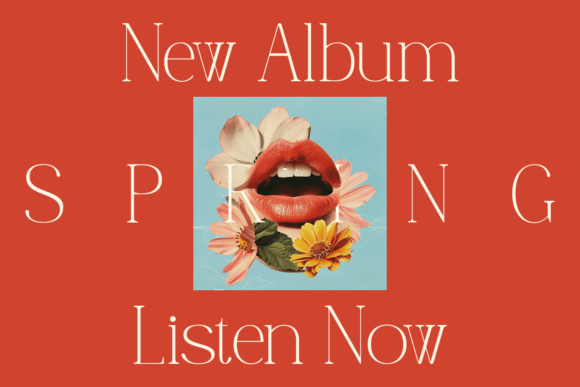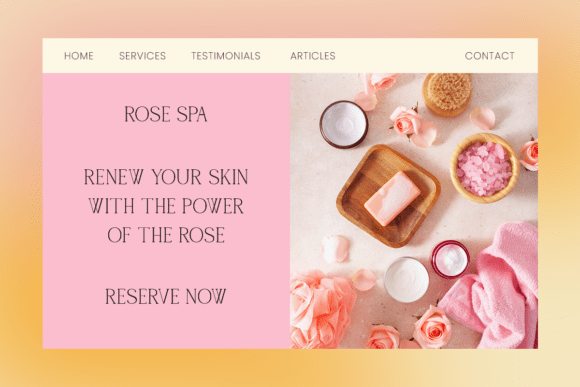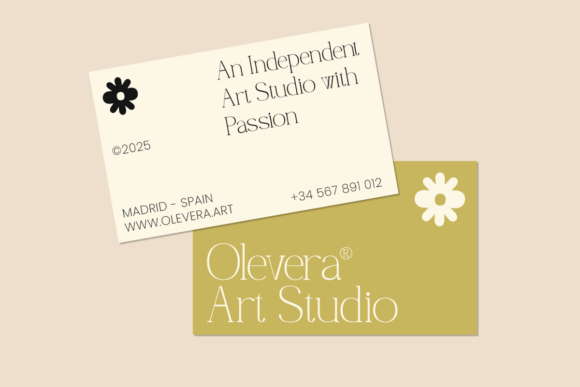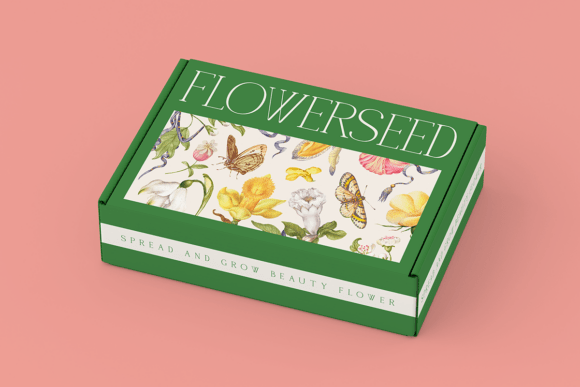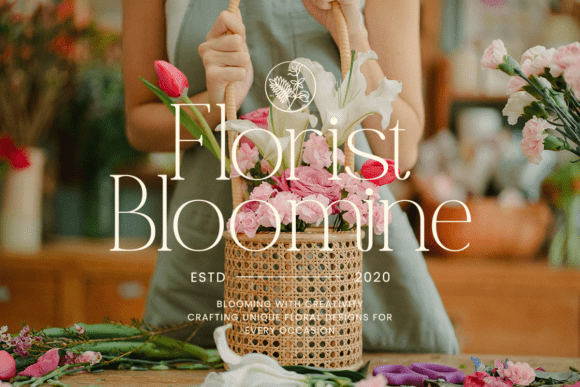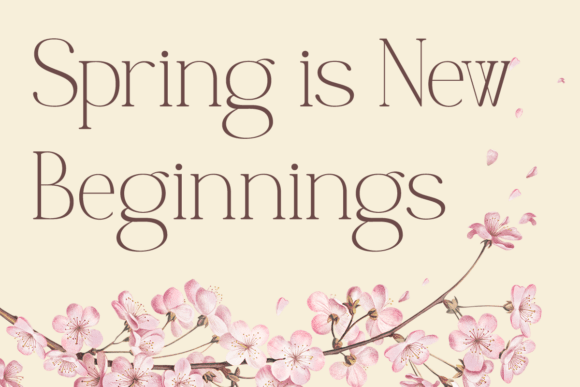
Gardening Font: Elevate Your Creative Projects with Elegance and Nature
Are you a designer, crafty enthusiast, or simply someone who appreciates the beauty of typography? Look no further than the Gardening Font, a stunning serif font that combines elegance with a natural touch. This versatile font is perfect for a wide range of creative projects, from branding and invitations to magazines, packaging, and more.
A Sleek and Graceful Design
The Gardening Font boasts a sleek design and graceful letterforms that exude sophistication and refinement. Its classic yet modern feel makes it an excellent choice for designers seeking to add a touch of elegance to their work. Whether you’re creating a logo, brochure, or social media graphics, this font is sure to impress.
Unique Typographic Elements
What sets the Gardening Font apart is its unique typographic elements, which bring a fresh and natural feel to your designs. The font’s subtle nuances and distinctive characteristics make it perfect for projects that require a personal touch. With Gardening Font, you can add a touch of whimsy and charm to your work, making it stand out from the crowd.
Ideal for Various Creative Projects
The Gardening Font is incredibly versatile, making it suitable for a wide range of creative projects. Here are just a few examples of how you can use this beautiful font:
- Branding: Create a lasting impression with a custom logo or brand identity that showcases the Gardening Font’s elegance and sophistication.
- Invitations: Make your invitations, wedding cards, or event flyers truly special with the font’s classic and refined feel.
- Magazines and Editorials: Add a touch of luxury to your publications with the Gardening Font’s sleek and modern design.
- Packaging: Elevate your product packaging with a custom label or design that features the font’s unique typographic elements.
Why Choose the Gardening Font?
With so many fonts available, why choose the Gardening Font? Here are just a few reasons why designers and crafters love this beautiful serif font:
- Elegance: The Gardening Font exudes elegance and sophistication, making it perfect for high-end designs.
- Versatility: This font is incredibly versatile, suitable for a wide range of creative projects and applications.
- Unique: The Gardening Font’s unique typographic elements set it apart from other fonts, ensuring your designs stand out.
- Easy to Read: The font’s clear and refined letterforms make it easy to read, even in smaller sizes.
Tips for Using the Gardening Font
To get the most out of the Gardening Font, here are a few tips to keep in mind:
- Pair with Other Fonts: Experiment with pairing the Gardening Font with other fonts to create a unique and visually appealing combination.
- Adjust Font Sizes: Don’t be afraid to adjust font sizes to create visual hierarchy and emphasize important information.
- Use in Headlines and Body Text: The Gardening Font is suitable for both headlines and body text, making it a great choice for lengthy designs.
In conclusion, the Gardening Font is a beautiful serif font that brings a touch of elegance and nature to your creative projects. Its sleek design, unique typographic elements, and versatility make it perfect for designers, crafters, and anyone seeking to add a personal touch to their work. Whether you’re creating branding materials, invitations, magazines, or packaging, this font is sure to impress.